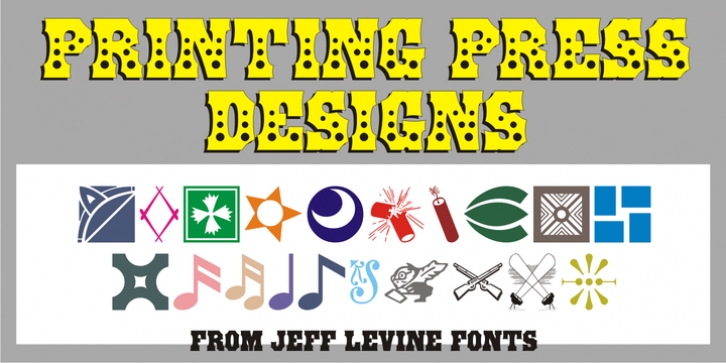
Printing Press Designs JNL accumulates various vintage embellishments, ornaments, border elements and miscellaneous designs into one handy collection.